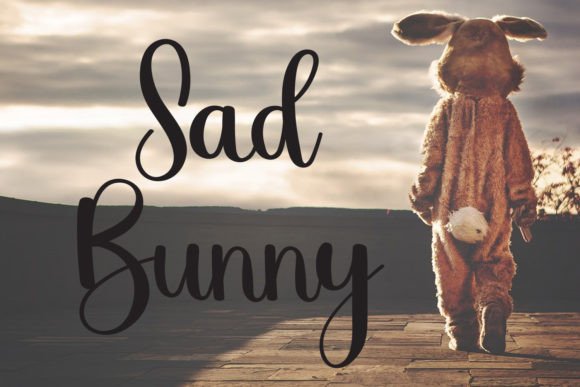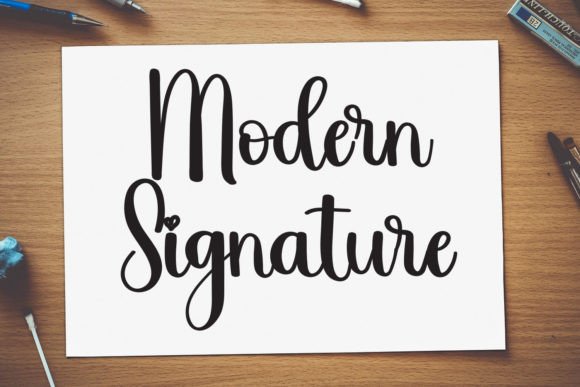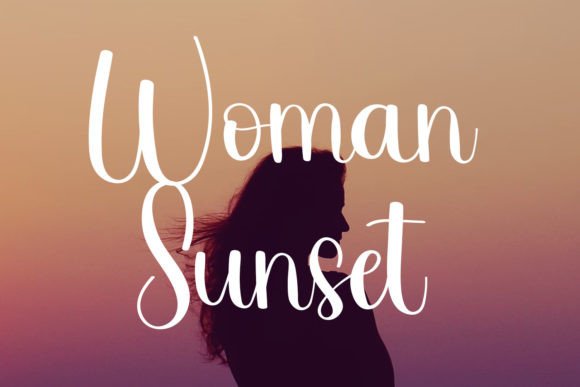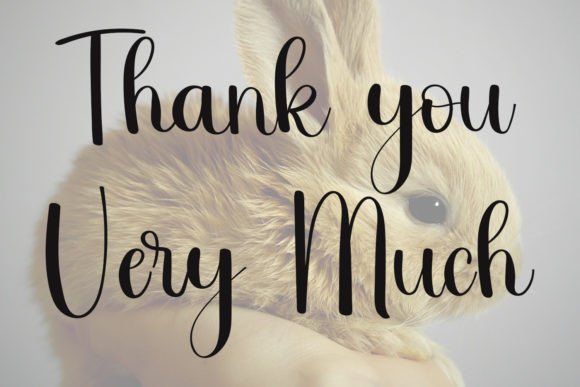
The Perfect Touch of Whimsy: Bunny Font
Have you ever been in the middle of designing a project, only to realize that something is missing – a certain je ne sais quoi that brings it all together? That’s exactly what I was going through when I stumbled upon the enchanting Bunny Font. Its elegant, handwritten style instantly captured my heart, and I knew I had to learn more about it.
Bunny Font is a beautifully crafted typeface that exudes charm and sophistication. Its versatility makes it perfect for a wide range of designs, from wedding invitations and thank you cards to logos, business cards, and quotes. Whether you’re a seasoned designer or a creative enthusiast, Bunny Font is a valuable addition to your toolkit.
With its unique, handwritten feel, Bunny Font adds a touch of personality to any design, making it stand out from the crowd. In this article, we’ll delve into the world of Bunny Font, exploring its features, uses, and benefits, and discover why it’s become a favorite among designers and creatives alike.
Bunny Font Key Features
- Font Style: Bunny Font is a cursive, handwritten font with a playful and whimsical feel.
- Unique Characteristics: Bunny Font features a unique, hand-drawn look with subtle imperfections, giving it a charming and organic feel.
Bunny Font Review
Overall, I think the Bunny Font has a certain charm to it, but it’s not without its flaws. Let’s start with what works well: ✨ The playful, whimsical feel of the font is perfect for creating a lighthearted atmosphere. It’s great for use in children’s books, greeting cards, or any other design that requires a touch of cuteness.
However, there are some limitations to consider: ⚠️ The font’s legibility can be a bit of an issue, especially at smaller font sizes. It’s also not ideal for use in body text, as it can be quite distracting to read for extended periods. Additionally, the font’s design can feel a bit over-the-top at times, which may not be suitable for all designs.
Here are some specific things to keep in mind when using the Bunny Font:
- Use it sparingly to avoid overwhelming the design.
- Avoid using it in large blocks of text.
- Consider pairing it with a more legible font for body text.
Overall, I’d say the Bunny Font is a fun and unique addition to any design project, but it’s not a one-size-fits-all solution. Use it thoughtfully and in moderation, and you’ll be sure to get the most out of it.
Tips for Getting the Most Out of Bunny Font
Here are some tips for getting the most out of Bunny Font:
- Use Bunny Font for whimsical and playful designs.
- Pair Bunny Font with bold and colorful graphics for maximum visual impact.
- Experiment with different font sizes and colors to achieve the desired effect.
Bunny Font is commonly used for:
- Children’s book illustrations.
- Party invitations and decorations.
Alternatives to Bunny Font for Designers
Ostrich Sans is a sans-serif font that is highly legible and versatile. It’s suitable for use in headings, body text, and even logos. It has a more elegant and refined look compared to Bunny Font, making it ideal for corporate and professional designs.
Comparison: Ostrich Sans is more polished and sophisticated than Bunny Font, but it may lack the whimsy and playfulness that Bunny Font offers.
Lato is a modern sans-serif font that is highly readable and adaptable. It’s perfect for use in digital products, magazines, and websites. It has a more neutral and clean look compared to Bunny Font, making it ideal for minimalist designs.